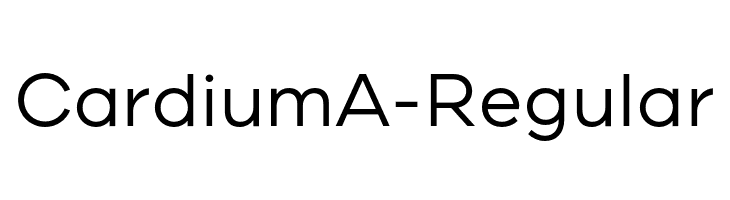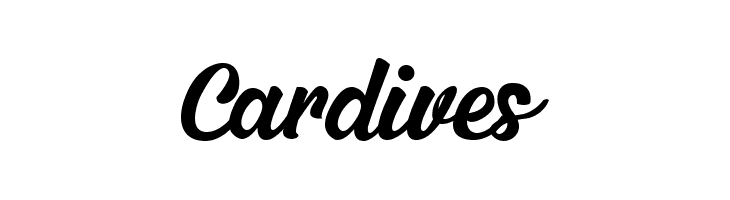
A dynamic handwritten font with fluid, elongated letterforms and a playful style.
A modern, geometric sans-serif font with clean lines and uniform strokes.
A bold, cursive font with a flowing, handwritten style.
A classic serif font with elegant strokes and moderate contrast, ideal for traditional and scholarly texts.
A classic serif font with elegant curves and strong presence.
An elegant serif font with a classic italic style and smooth, flowing lines.
A bold, handwritten font with a dynamic and textured style.
A bold, angular font with a hand-carved, ancient script style.